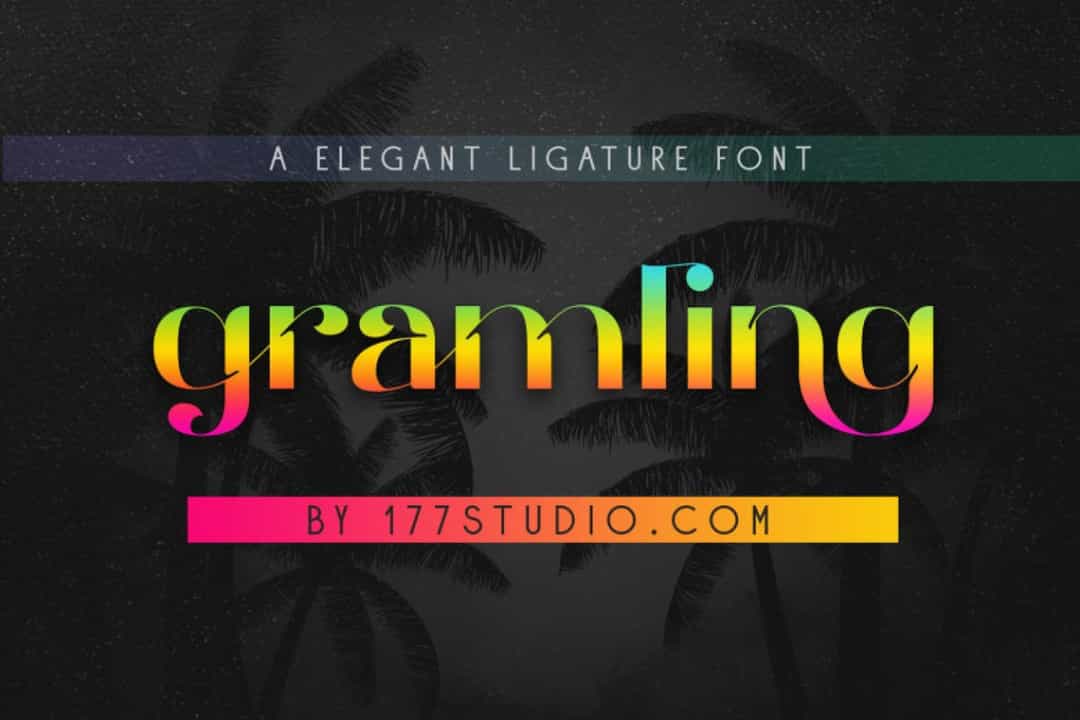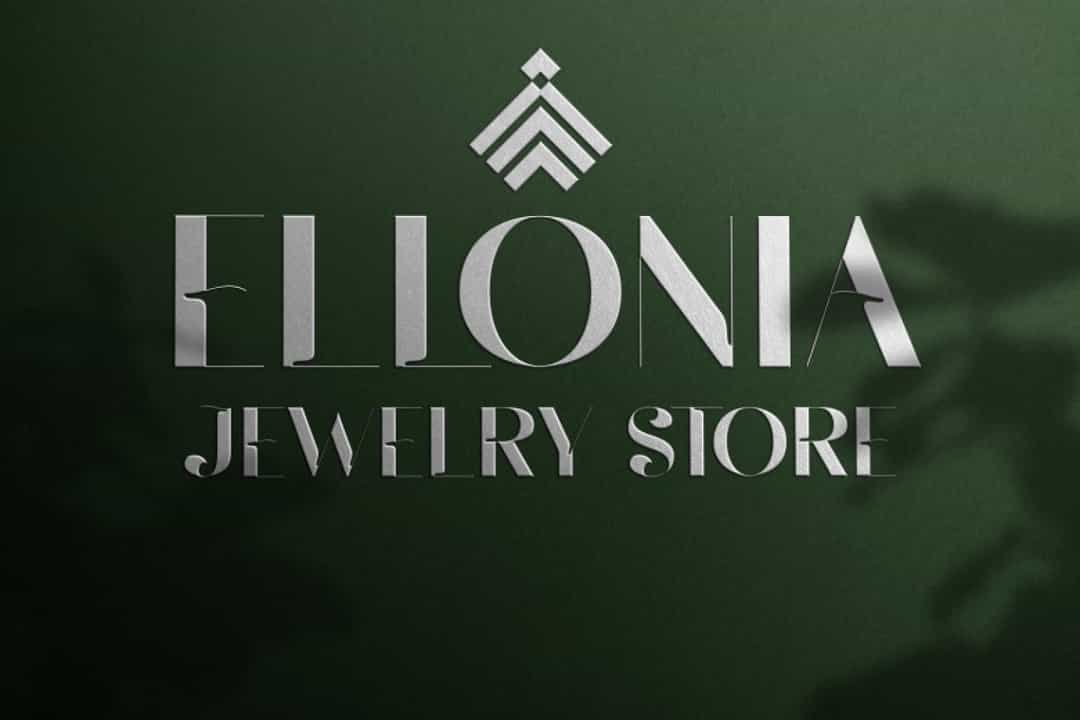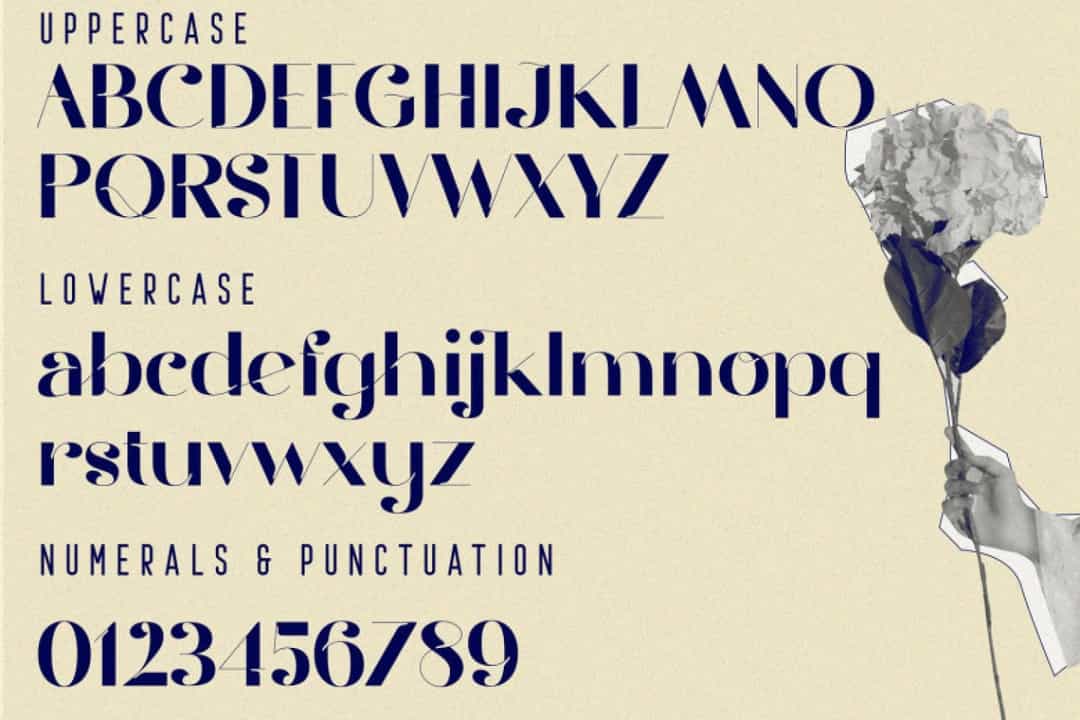
Discover Gramling Font, part of the Sans Serif Display collection—a versatile and unique font perfect for adding a personal touch to your projects. Download it for free and enjoy crafting designs with style, from invitations to social media posts. This font is available exclusively for personal use, giving you the freedom to create without limits. Unlock your creativity with Gramling Font today!
Gramling is an original and stylish font designed specifically to create logos and brand designs. Expect classy stylish sophisticated logos when using Gramling. Additionally it is perfect for those who are searching for sleek modern aesthetic designs with modern simplicity & simplicity.